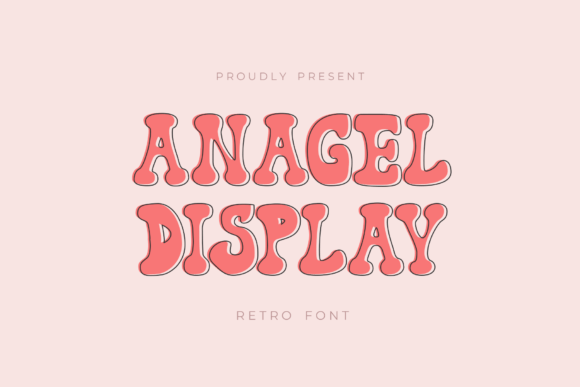
The Retro Groovy Anagel Font: A Designer’s New Best Friend
I still remember the design project that led me to discover the Anagel font. I was working on a craft project, creating a set of retro-themed greeting cards, and I was struggling to find the perfect font. That’s when I stumbled upon Anagel, a retro groovy display font that instantly caught my eye. In this article, I’ll share my experience with Anagel, its features, and how to make the most of it in your designs.
An Honest Review of Anagel Font
So, what makes Anagel special? Here are some things I love about this font:
• ✨ Unique retro style that’s perfect for craft projects, digital designs, and presentations
• ✅ Highly versatile and can be used for various occasions, from greeting cards to social media graphics
• 💥 Great for headlines and titles, thanks to its bold and eye-catching design
Of course, no font is perfect, and Anagel has a few quirks:
• 🤔 Limited use for body text, as it’s primarily designed for display purposes
• ⚠️ Some characters may not work well at very small font sizes
The Story Behind Anagel Font
Anagel was designed with the goal of capturing the playful, carefree spirit of the 1970s. The font’s creator drew inspiration from vintage posters, music festivals, and retro advertisements. The result is a unique, eye-catching font that’s perfect for designers, crafters, and creative hobbyists looking to add a touch of nostalgia to their work.
What is Anagel font best used for? Anagel is ideal for display purposes, such as headlines, titles, and short text snippets. It’s perfect for craft projects, digital designs, presentations, and greeting cards.